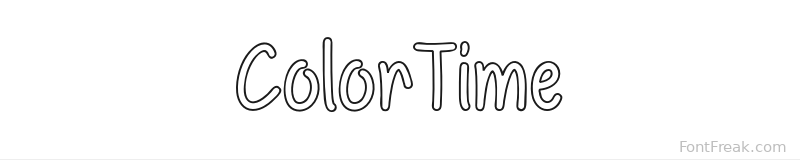
Color Time
The "Color Time" font, created by Misti Hammers, is a vibrant, decorative typeface that captures attention with its unique style. This font is characterized by its playful, rounded letterforms that convey a sense of joy and creativity. The stroke weight is consistent, providing a smooth and friendly appearance that makes it versatile for various design applications. Its spacing is generous, allowing for clear legibility while maintaining a fun aesthetic. The font features whimsical decorative elements, such as playful curves and slight variations in thickness, which contribute to its distinct personality.
Ideal use cases for the Color Time font include children's book covers, where its cheerful style can engage young readers. It works exceptionally well for birthday party invitations, adding a festive touch that captures the joyful spirit of celebrations. Additionally, the font is suitable for creative branding for cafes or ice cream shops, where a fun, inviting look is essential. Graphic designers may also find it perfect for social media graphics, making posts stand out in a crowded feed. Content creators can leverage Color Time for promotional materials, ensuring their message is conveyed in an eye-catching manner.
The target audience for this font encompasses graphic designers, small business owners, and content creators who seek a lighthearted yet professional typeface. The Color Time font free download allows users to easily incorporate this eye-catching style into their projects without any licensing concerns. What sets Color Time apart is its ability to evoke a sense of fun while remaining highly readable, making it a fantastic choice for projects that aim to leave a lasting impression. Its versatility and charm ensure that it can enhance a wide range of creative endeavors.